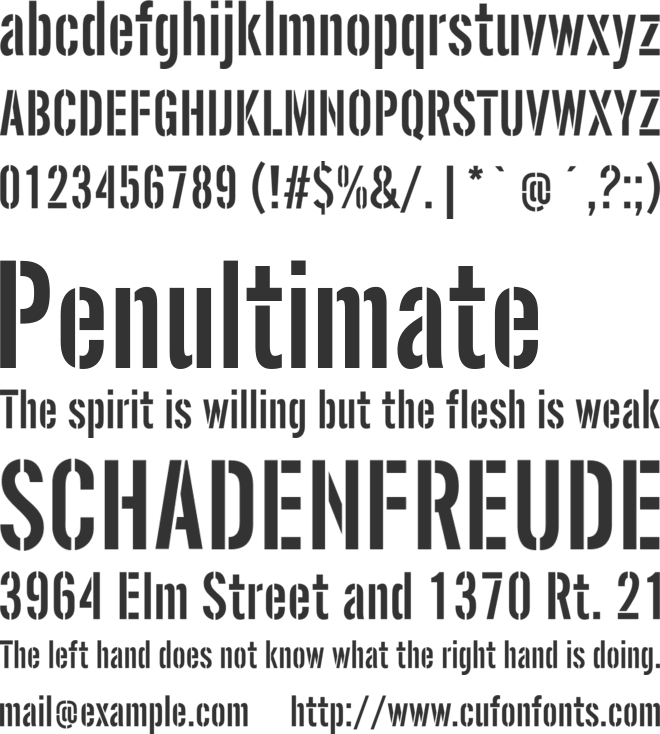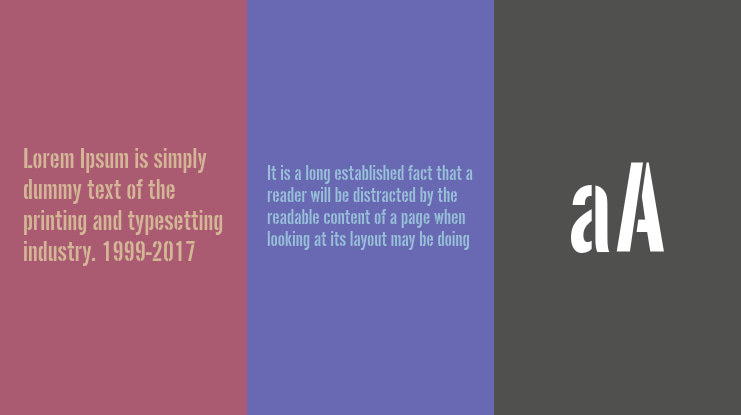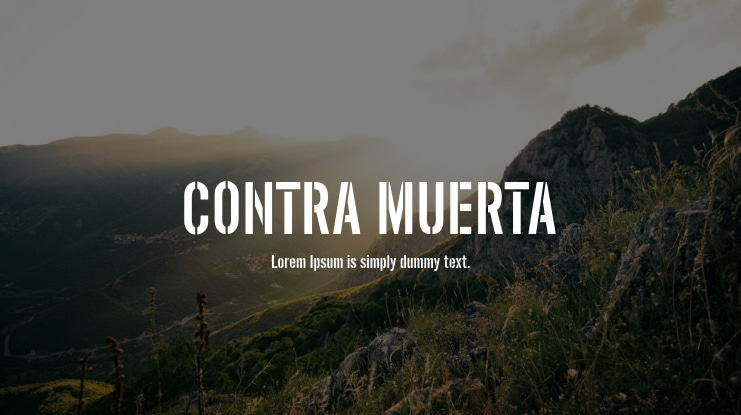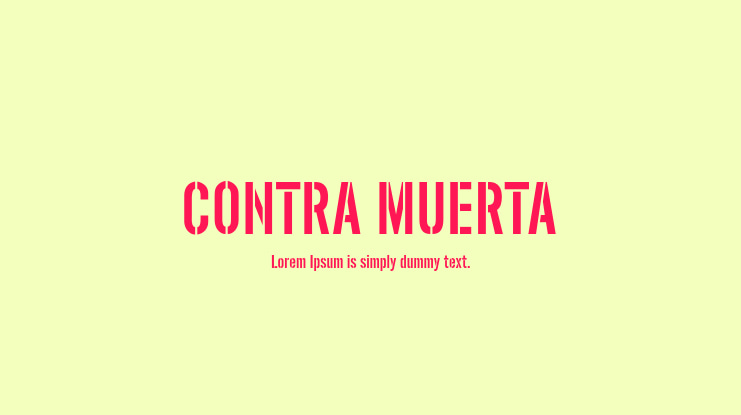
CONTRA MUERTA Font
Stencil fonts are characterized by their distinct cut-out designs, which allow for easy application in various contexts, such as signage and artistic projects.These fonts typically feature gaps or "bridges" in letters to ensure that they can be easily cut out without losing structural integrity.History and DevelopmentThe first stencil typefaces were released in 1937, notably designed by Gerry Powell for American Type Founders.These fonts were created to mimic the appearance of bold, cut-out letters, making them ideal for attention-grabbing applications.Stencil fonts offer a unique blend of functionality and style, making them a valuable asset in both professional and personal design projects. With a variety of options available across multiple platforms, designers can easily find the perfect stencil font to meet their needs.